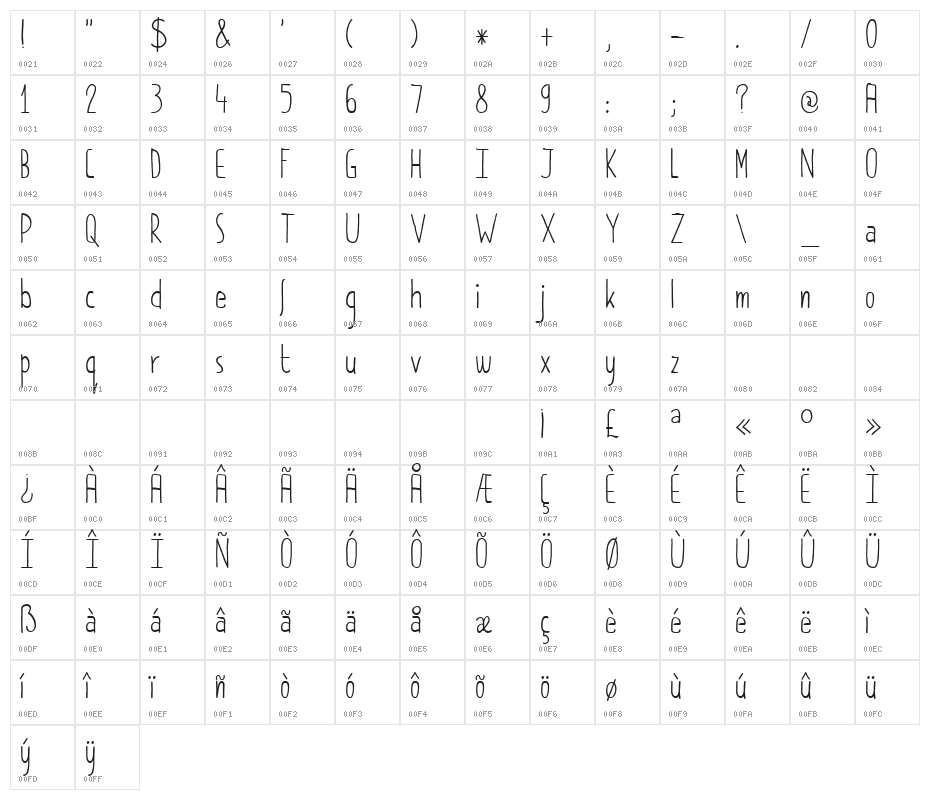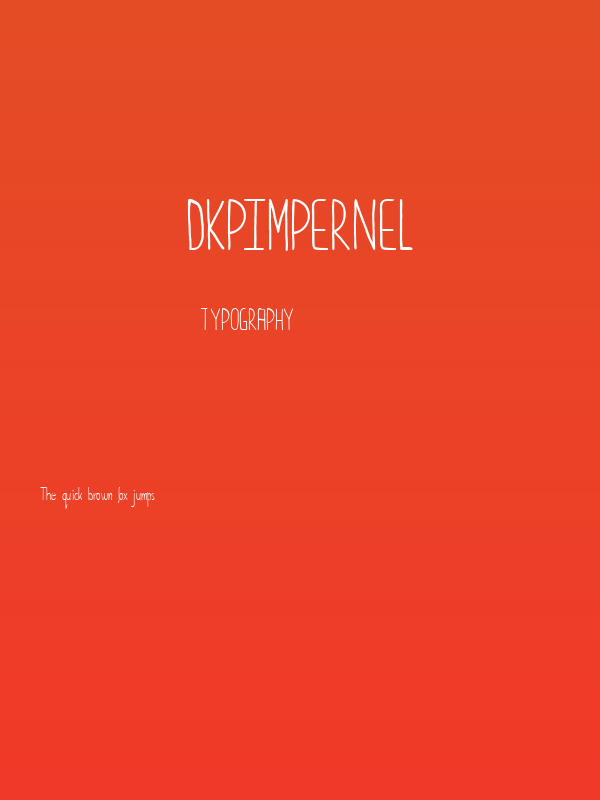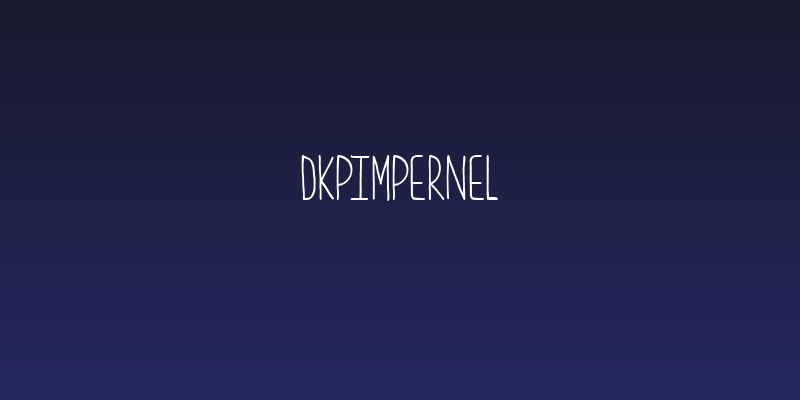
DKPimpernel Font
DKPimpernel Description
This font features a playful and whimsical design, characterized by its tall, narrow letterforms and irregular strokes. The uppercase letters are slightly taller than the lowercase, with a consistent stroke width that gives it a hand-drawn appearance. The characters have a casual and informal style, with some letters displaying unique quirks, such as the looped descender on the lowercase 'g' and the curved tail on the 'y'. The numbers maintain the same playful style, ensuring consistency across the typeface. Special characters are included, matching the overall aesthetic with their own distinctive flair.
| Overall Style | Whimsical |
| Proposed Projects | Ideal for children's books, creative posters, greeting cards, and playful branding projects. |